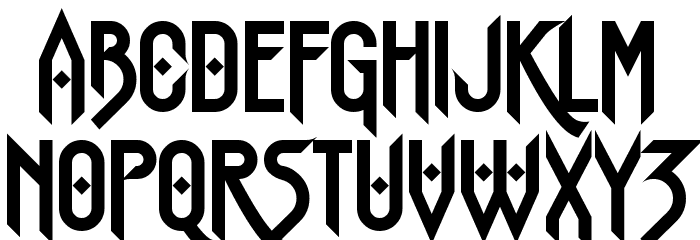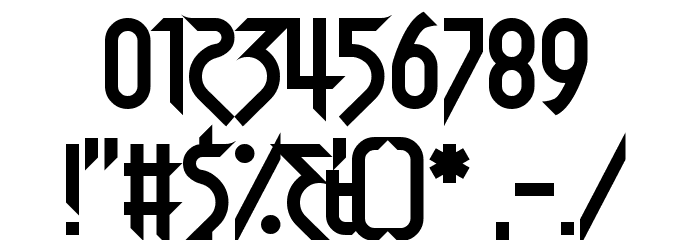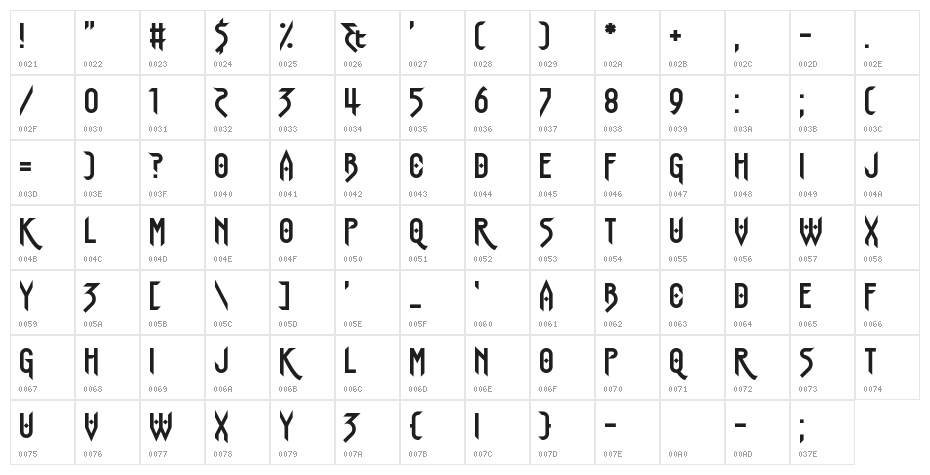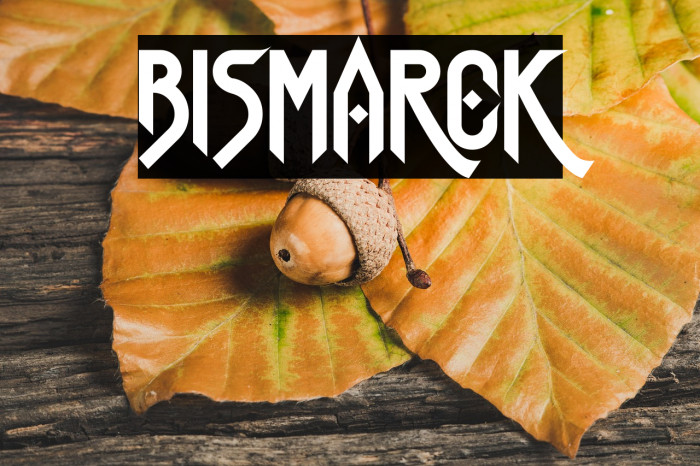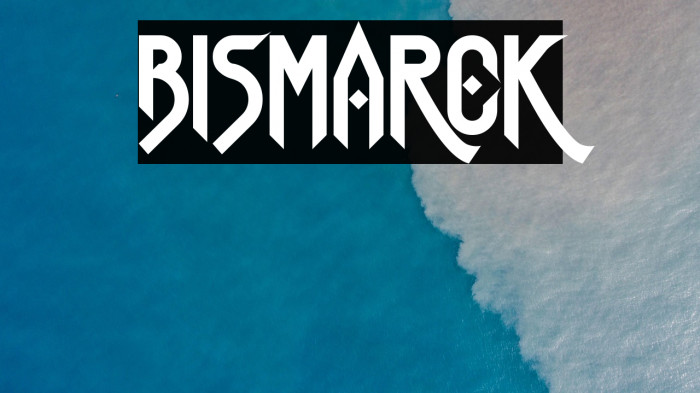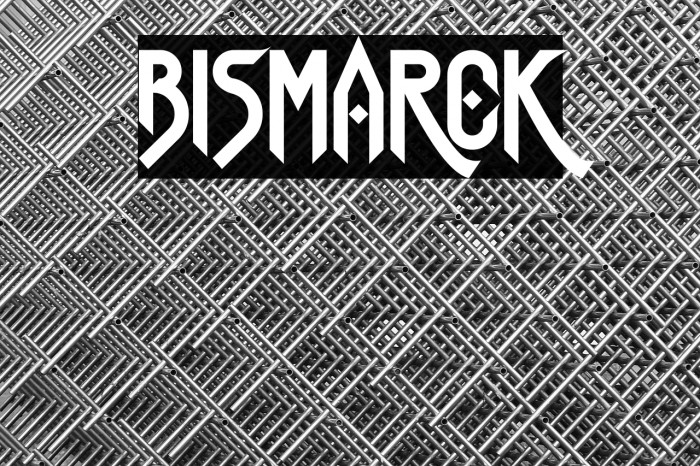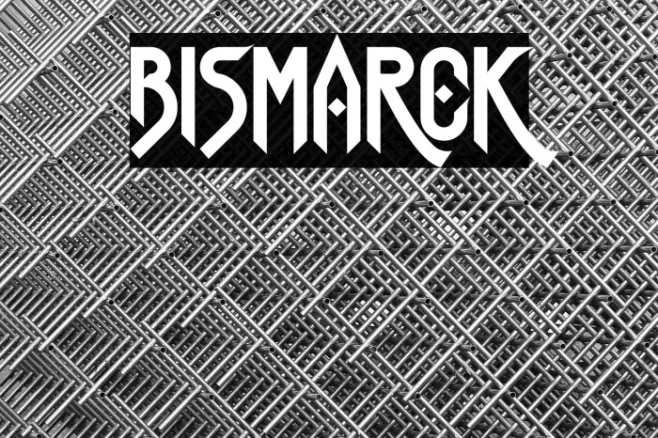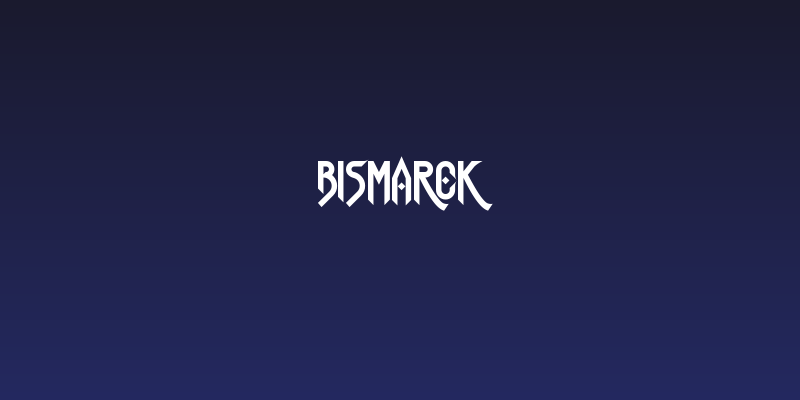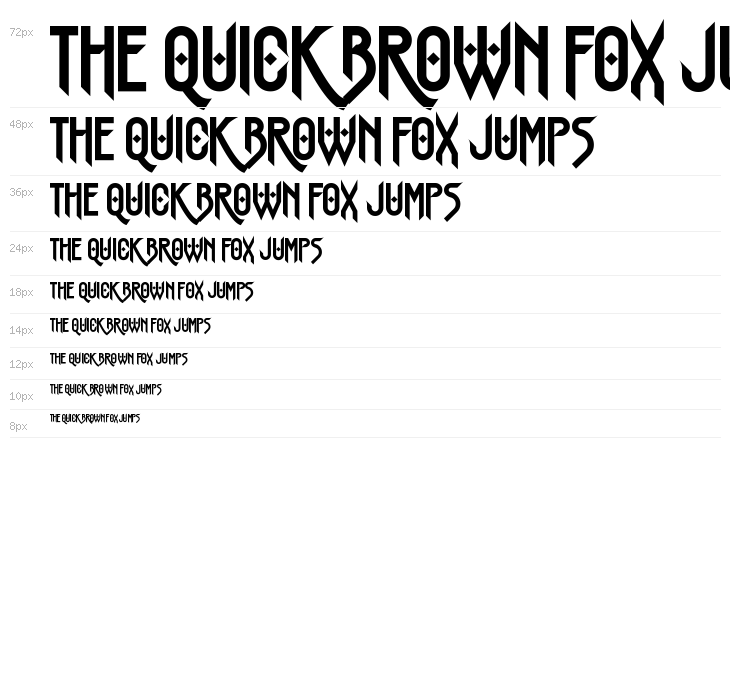
Bismarck Font
This font features a bold and angular design, characterized by sharp edges and geometric forms. The uppercase letters are particularly striking, with a strong vertical emphasis and pointed serifs that give a sense of authority and strength. The lowercase letters maintain this angular style, ensuring consistency throughout the typeface. Numbers and special characters are designed to match the boldness and geometric nature of the letters, making the font suitable for impactful and eye-catching designs. The overall aesthetic is reminiscent of Gothic or medieval styles, yet it retains a modern twist with its clean lines and structured appearance.
A bold, angular font with a geometric and authoritative style.
- Proposed Projects: Ideal for branding, posters, and any design requiring a strong, impactful presence.
- Overall Style: Modern Gothic